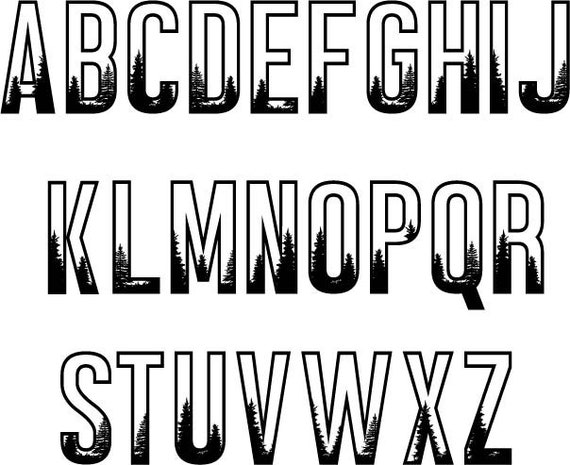
Lakers is a multipurpose condensed uppercase sans serif typeface font designed by Gfonts. Donation can be made via Paypal.
Los Angeles Lakers Font Style Lakers Debut New Court Logo Jersey Patches To Memorialize Kobe Bryant Silver Screen And Roll The Closest Free Font You Can Get Is Parmapetitscitalic Font
Lettering lakers font style. The actual font used for the logo is called Bodoni by Linotype and is available for purchase. Oct 25 2016 at 1753. The Fonts in Use section features posts about fonts used in logos films TV shows video games books and more.
If you dont feel like buying this font Its ok. I even liked the shadow that they used to use on the numbers which wasnt a true shadow but still had the effect. The 2 is my favorite part.
NBA Lakers refers to the font used in the lettering of Los Angeles Lakers jersey. Its bold and casual down-to-earth lettering evokes the spirit of the 1940s and 1950s in America. Lakers Free Font is a classic all-caps sans serif font whic may be used for absolutely different purposes from the design of cute postcards to use in a rough vintage old-school logos.
This is not the official font and only resembles the font used for lettering numbers and player names. It has a nice and unique typeface with two styles Lakers Regular and Lakers Textured. By style by author or by popularity.
For its classic all-caps sans serif font Lakers can be used for different purposes from the design of cute postcards to use in any old-school logo. Lakers Font Generator. Keep Calm And Love Lakers Keep Calm And Posters Generator.
The font used for Los Angeles Lakers logo is very similar to Bauer Bodoni Black Italic which is a neoclassical serif font designed by Giambattista Bodoni Heinrich Jost and published by Linotype. Nba Celtics Font Download Boston Celtics Font Fonts4free. Font Finder By What Font Is.
The Text Generator section features simple tools that let you create graphics with fonts of different styles as well as various text effects. Details About Vintage 90 S Los Angeles Lakers Spellout Logo Athletic Hat Gap 1990s. The lettering for the Lakers logotype resembles a font named Bodoni Italic created by Gerald Giampa.
Los Angeles Lakers Font Free Alternatives. The numbers letters were originally created by Nick Whitford and Dennis LMUpepbander Ittner. The Lakers version of it is fantastic and I think it would translate perfectly to a football uniform too.
Whats the font used for Los Angeles Lakers logo. This font designed by Manfred Klein. The closest font you can get for the Los Angeles Lakers logo is Valencia Serial Medium Italic font.
The Lakers logo features the Lakers logotype as well as the text Los Angeles on a basketball. Version Macromedia Fontographer 41 3172007. Anyway weve found two fonts very similar font used in the logo.
Hand lettering is an art form that takes practice and discipline and can mimic calligraphy or other styles. NBA Lakers Showtime OpenType Personal use. Archive of freely downloadable fonts.
The font is a commercial one and can be purchased here. This topic is now closed to further replies. Forum Font identification Back to the list.
The Fonts Collection section is the place where you can browse filter custom preview and. 0 1 2 3 4 5 6 7 8 9 A B C D E F G H I J K L M N O P Q R S T U V W X Y Z _. Newer Topic Older Topic.
Lakers Font identification 1. Number Five is pure Americana suitable for titling display logo signage and editorial work. For a free version that looks just as good you can try ParmaPetit by Manfred Klein or NBA Lakers by Eriq P.
Introducing Lakers multipurpose condensed uppercase clean sans serif typeface.